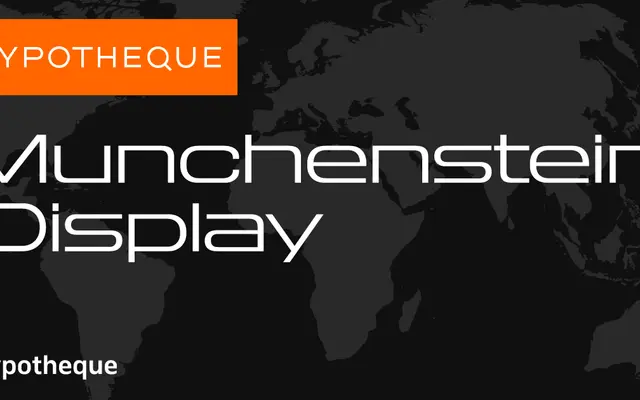
Munchenstein Display
A large-scale display system from Typotheque with ten weights, three slant axes and a colour variant, extending into companion text and slab subfamilies.
The family spans ten weights from Hairline to Black, each offered in upright, slanted and backslanted cuts, giving designers 30 Display styles alone. A variable font is included alongside the static cuts. Munchenstein Text covers six weights with slanted pairs for sustained reading, while Munchenstein Slab adds a regular cut with a colour variant, making this a self-contained system for large editorial and identity projects.
A display-oriented sans-serif system with an unusual triaxial slant structure including upright, slanted and backslanted cuts across an extensive weight range, alongside companion text and slab subfamilies.